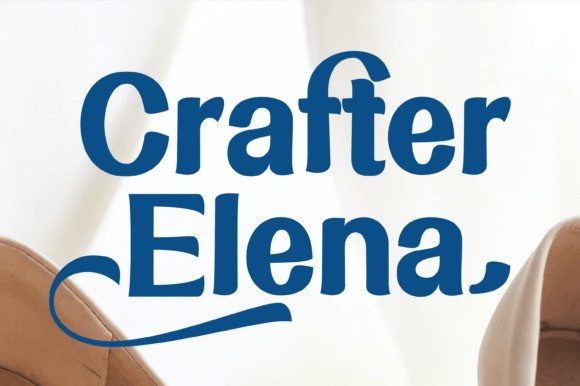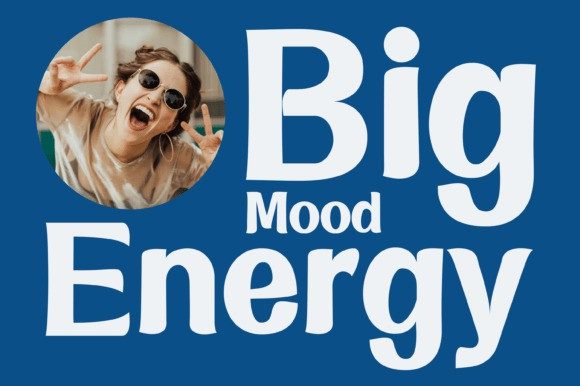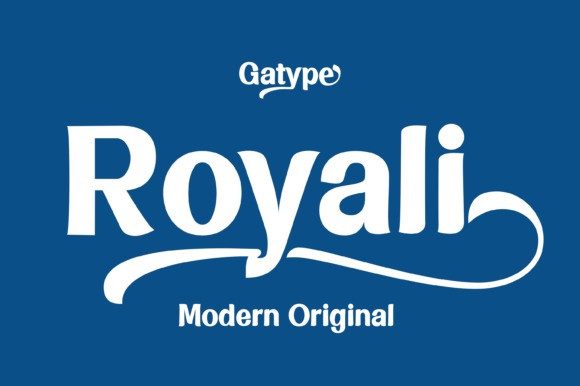
Royali Font
Royali Font is a modern serif display font with a bold, elegant twist.Featuring unique letterforms and sweeping tails, it’s perfect for logos, branding, packaging, and editorial headlines. With a distinctive style that balances sophistication and originality, Royali stands out in both digital and print design. Its creative flair makes it ideal for luxury branding and contemporary projects alike.